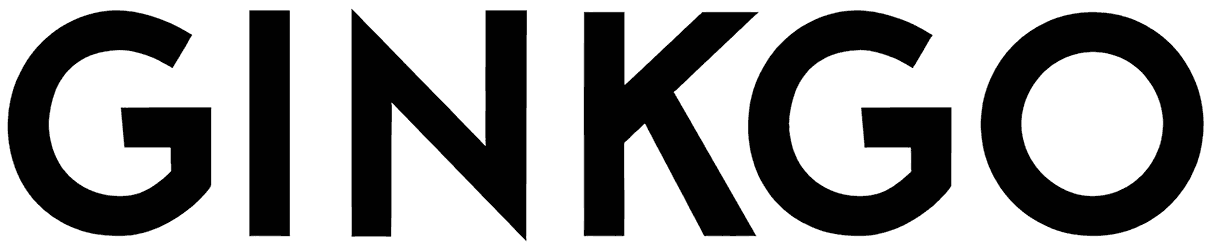
Ginkgo Font
If you have a special occasion coming up or you have a demanding client, it’s time to add Ginkgo to your stash and pull it out in any challenging situation. This sans-serif font can turn your website, poster, or any ordinary project into something worthy.
If you want to avoid the hassle of finding the right font for every project, be sure to turn Ginkgo into a star font that can create a masterpiece wherever lowercase letters are not required.